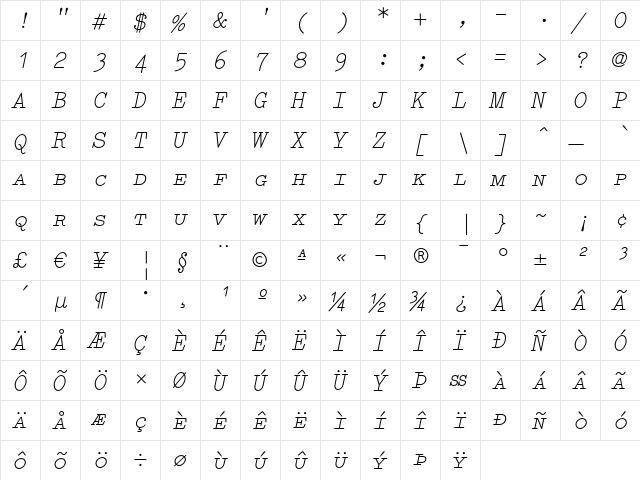
Elementa SC Italic
Design Context for Elementa SC Typeface
Elementa SC offers clean, dependable letterforms without strong stylistic allegiance, making it a practical choice for designers who need flexibility. The slanted form adds forward momentum and visual energy.
Pro Tip: Try Elementa SC for annotation and caption copy alongside an upright companion — the contrast in angle creates a dynamic but ordered typographic system.